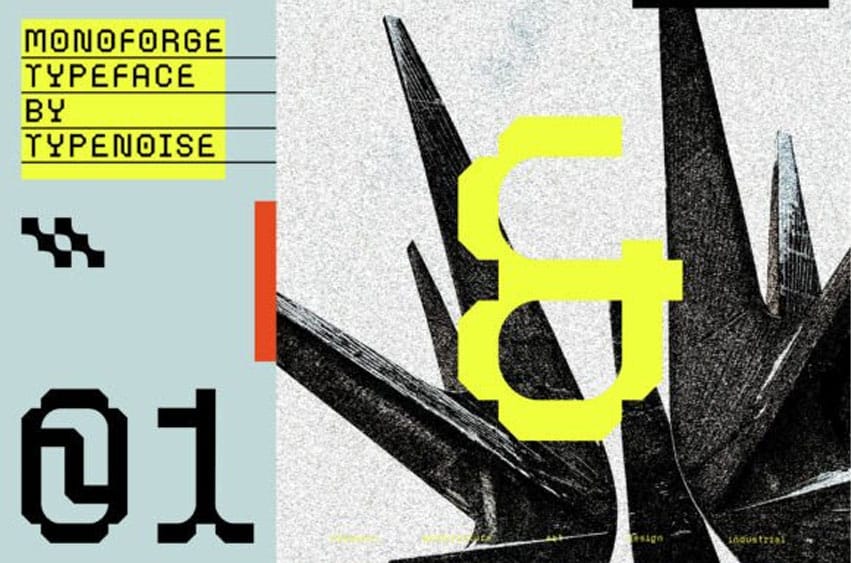
Monoforge Font Inspired by the raw aesthetics of industrial design, brutalist architecture, and the functional precision of monospace fonts.
MONOFORGE is a bold and striking typeface that embraces strength and simplicity. Its clean, geometric lines and rigid structure evoke a sense of minimalism and purpose. making it ideal for projects that require a strong visual impact.
The monospaced design ensures uniformity and clarity, while the industrial influence adds an element of ruggedness and modernity. Whether used for branding, editorial design, or digital interfaces, MONOFORGE offers both legibility and an unmistakable sense of character. Perfect for those looking to balance utility with bold style, this typeface blends form and function in a way that is both contemporary and timeless. Include OTF, TTF formats.